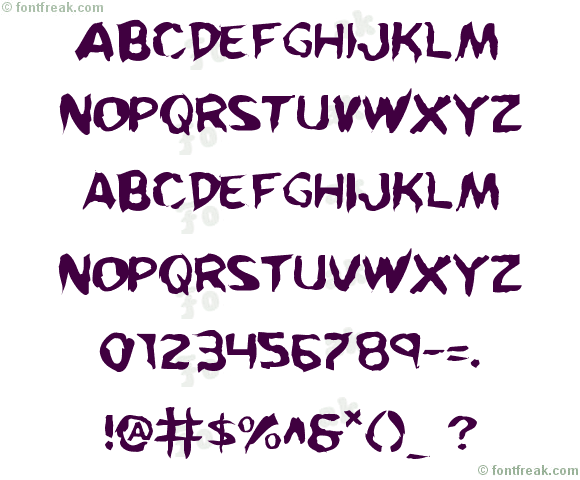
About Kreeture Warped
Kreeture Warped, designed by Daniel Zadorozny in 2002, is a distinctive display font that stands out with its unique, warped aesthetic. This freeware font belongs to the decorative category, making it an ideal choice for projects that require a touch of creativity and playfulness. The font features irregular stroke weights that create a dynamic visual interest, with sharp edges and a slightly italicized stance that adds to its overall character. The spacing between letters is deliberately varied, enhancing the whimsical effect and allowing for an engaging reading experience.
This font is perfect for a variety of creative applications. It works exceptionally well for movie posters, where its bold and unconventional style can capture attention and convey a sense of drama. Additionally, Kreeture Warped is an excellent choice for promotional materials for Halloween-themed events or parties, thanks to its slightly eerie vibe. Graphic designers might also find it suitable for branding projects, particularly for businesses in the entertainment or arts sectors. Furthermore, it can add a unique flair to restaurant menus that aim to create a fun and casual dining atmosphere.
Targeted primarily at graphic designers, small business owners, and content creators, Kreeture Warped offers an expressive option for those looking to make a strong visual statement. It invites creativity and encourages experimentation, making it a versatile asset for any designer's toolkit.
What makes the Kreeture Warped font stand out is its ability to evoke emotion and intrigue through its unconventional design. It breaks away from traditional font styles, allowing users to explore new creative avenues. For those interested in adding a distinctive touch to their projects, the Kreeture Warped font free download is an excellent starting point.